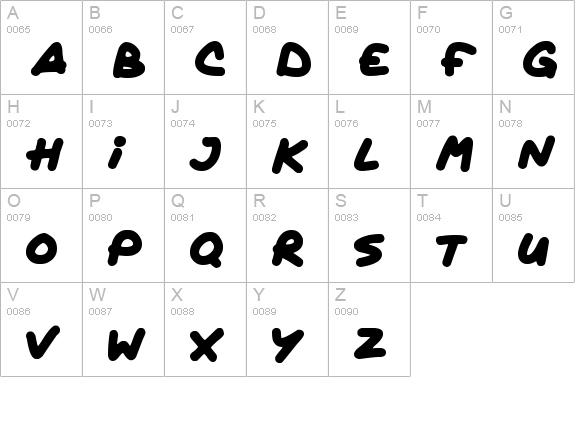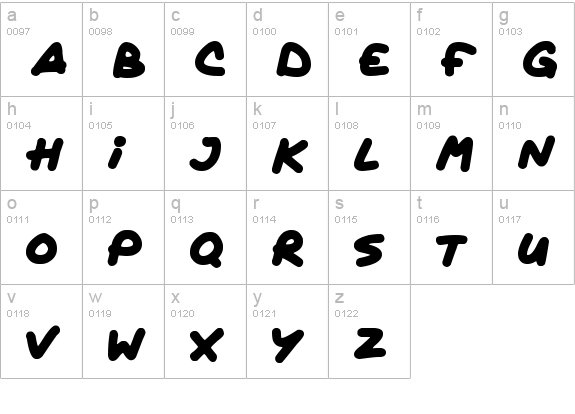
Quickly Font Details
Quickly is a donationware font in the Script > Handwritten category, designed by Darrell Flood. It has been downloaded 47 times and is available for Windows, Mac and Linux.
Quickly font is a modern and stylish typeface designed to make your projects stand out. With its clean lines and bold appearance, Quickly font is perfect for a wide range of design applications, from branding to packaging to social media graphics. The versatility of this font makes it a valuable addition to any designer's toolkit.